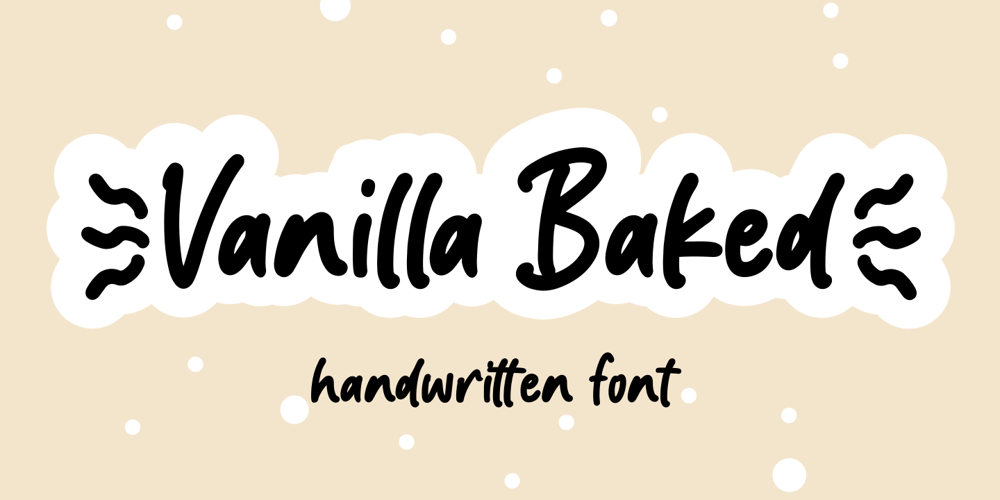
Vanilla Baked
Vanilla Baked font
Vanilla Baked Font Family was designed by Muhammad Fikry and published by Fikryal. Vanilla Baked contains 1 styles and family package options. Vanilla Baked is a handwritten font perfect for crafting, branding, invitation, stationery, wedding designs, social media posts, advertisements, product packaging, product designs, label, photography, watermark, special events, or anything.Vanilla Baked comes with full set of uppercase and lowercase letters, ligatures, multilingual symbols, numerals and punctuation.